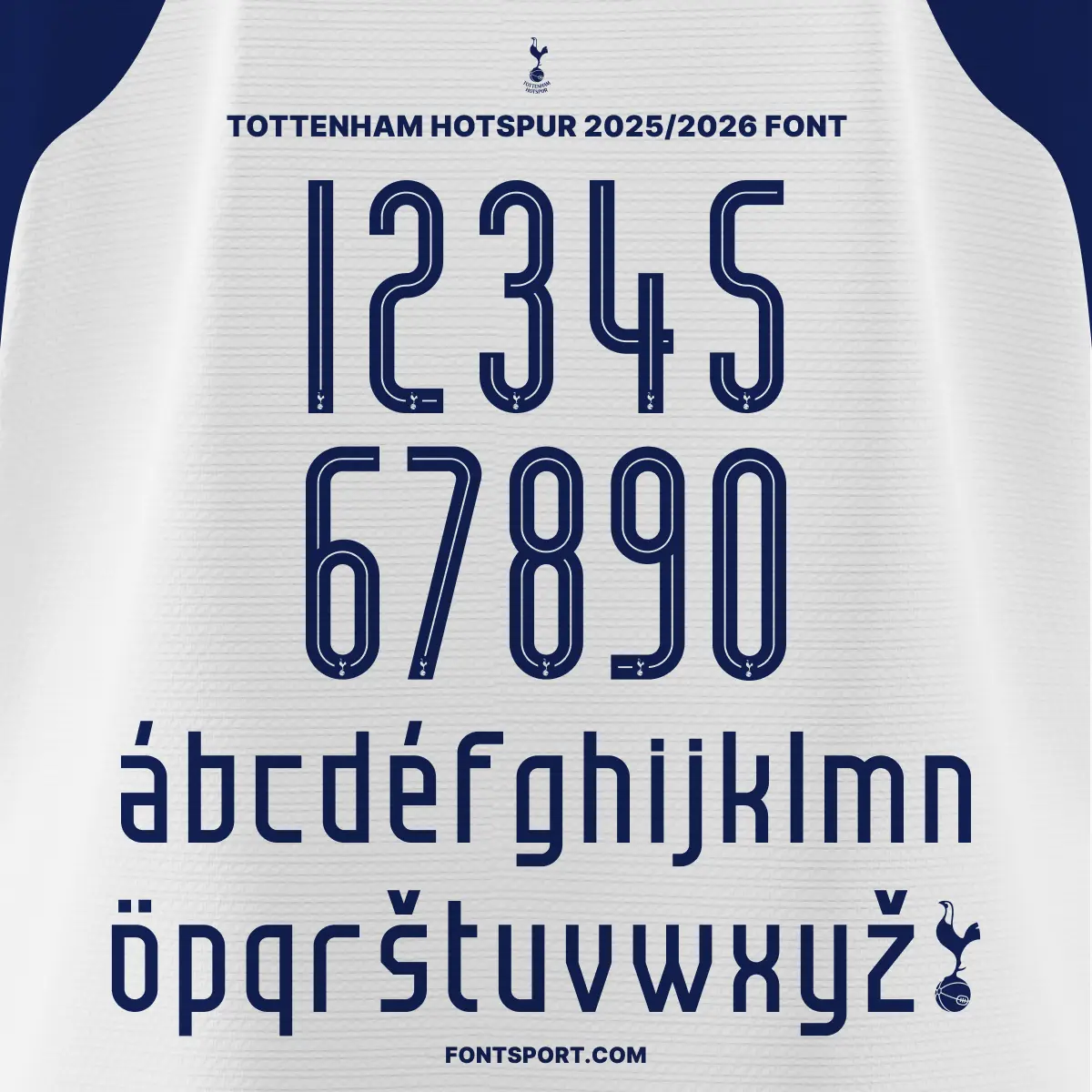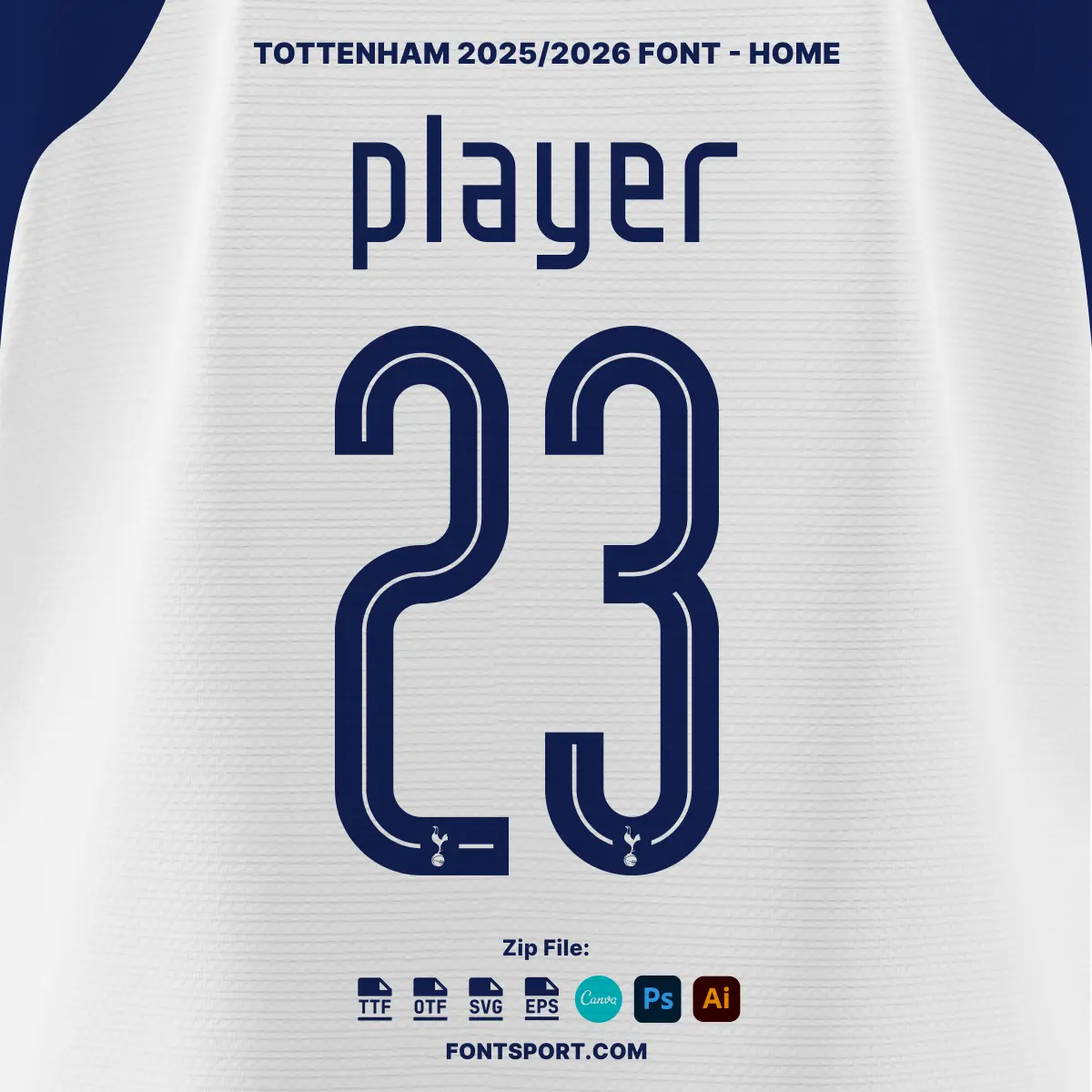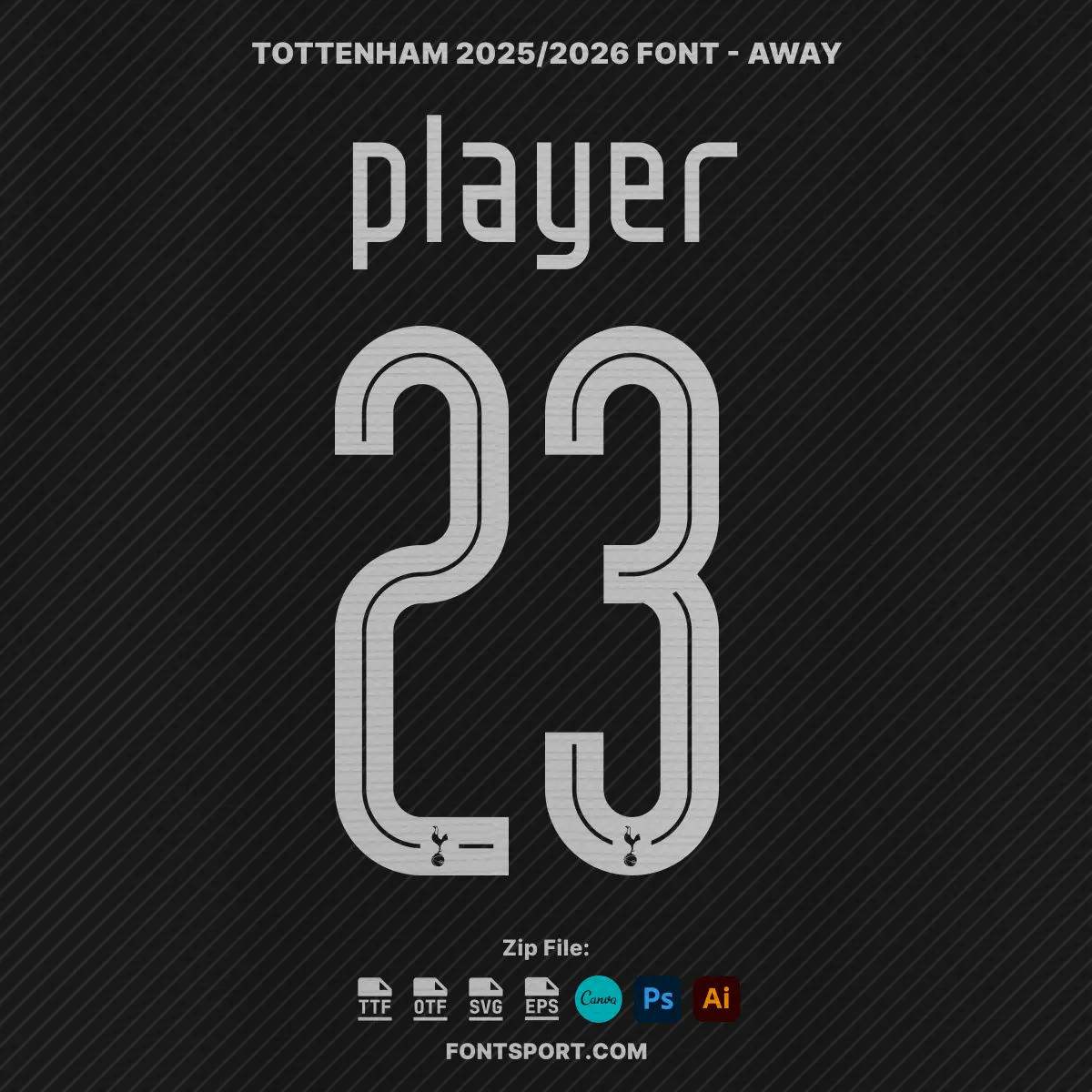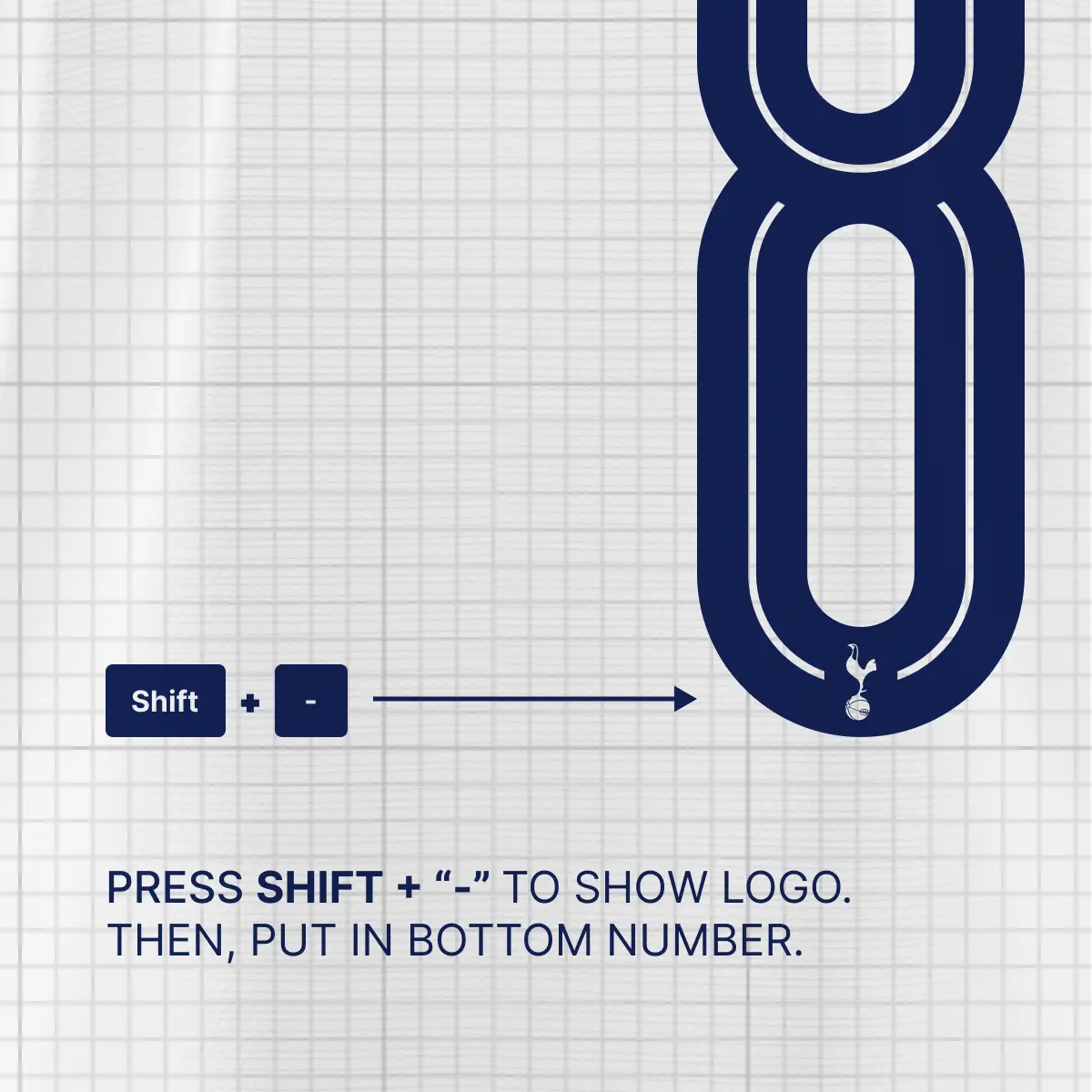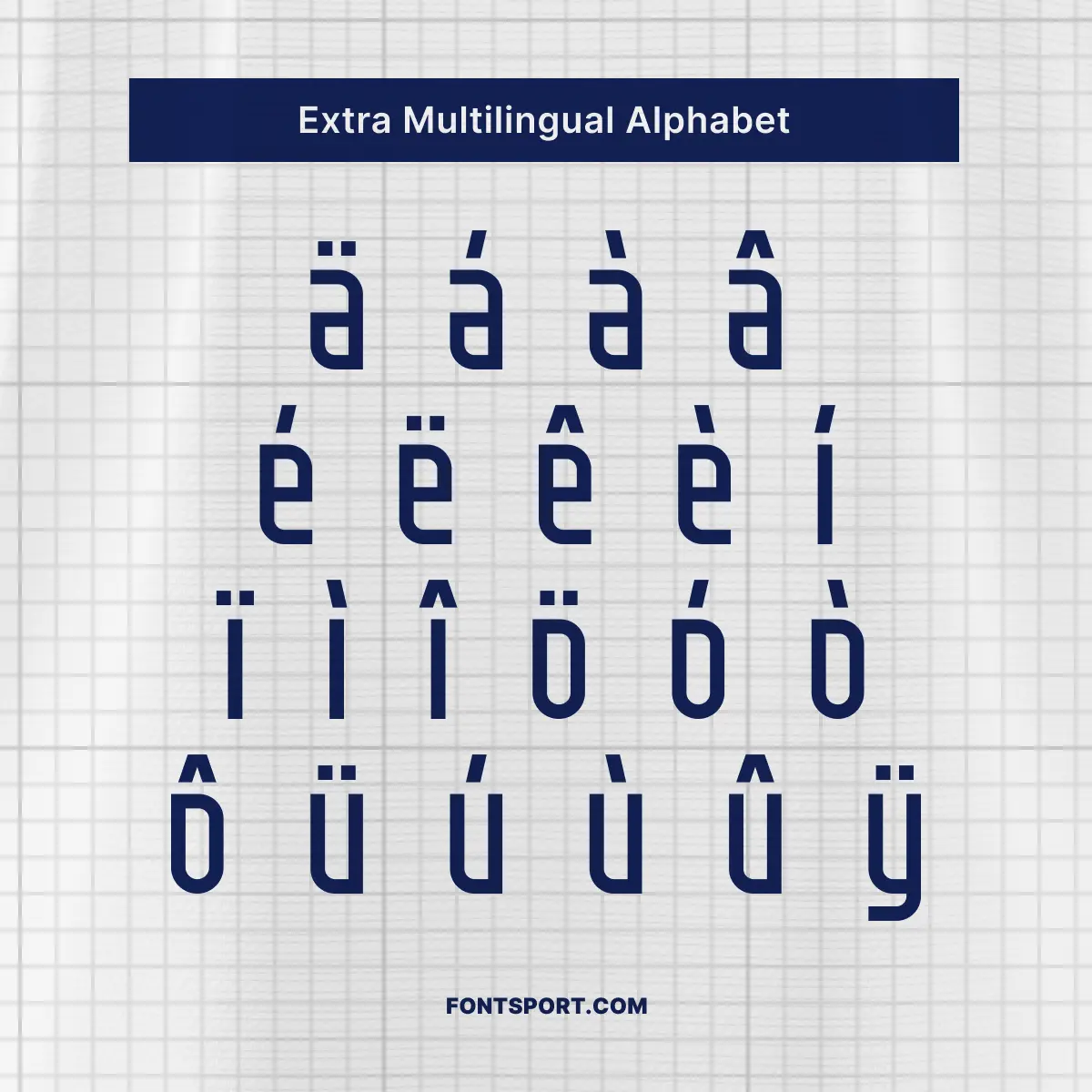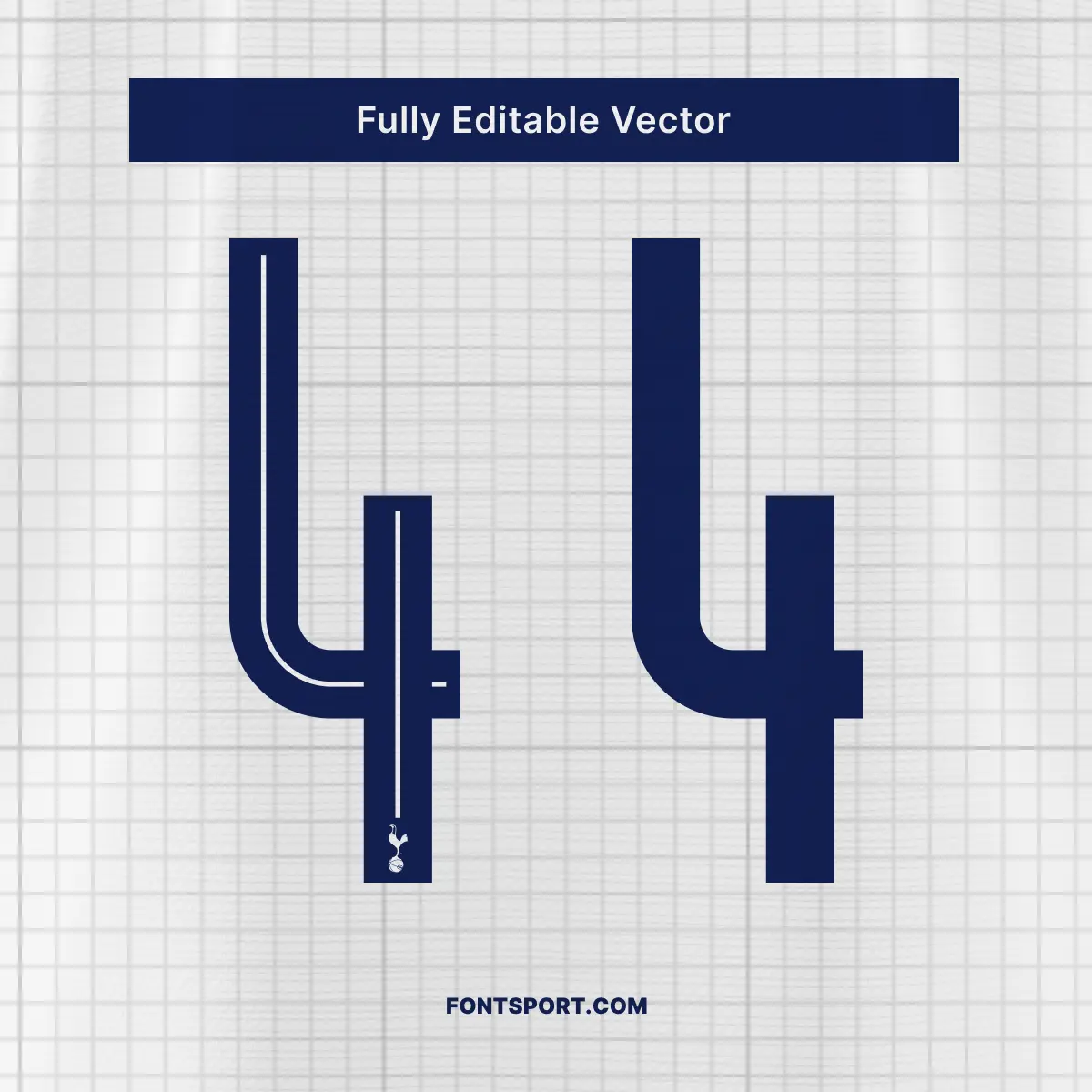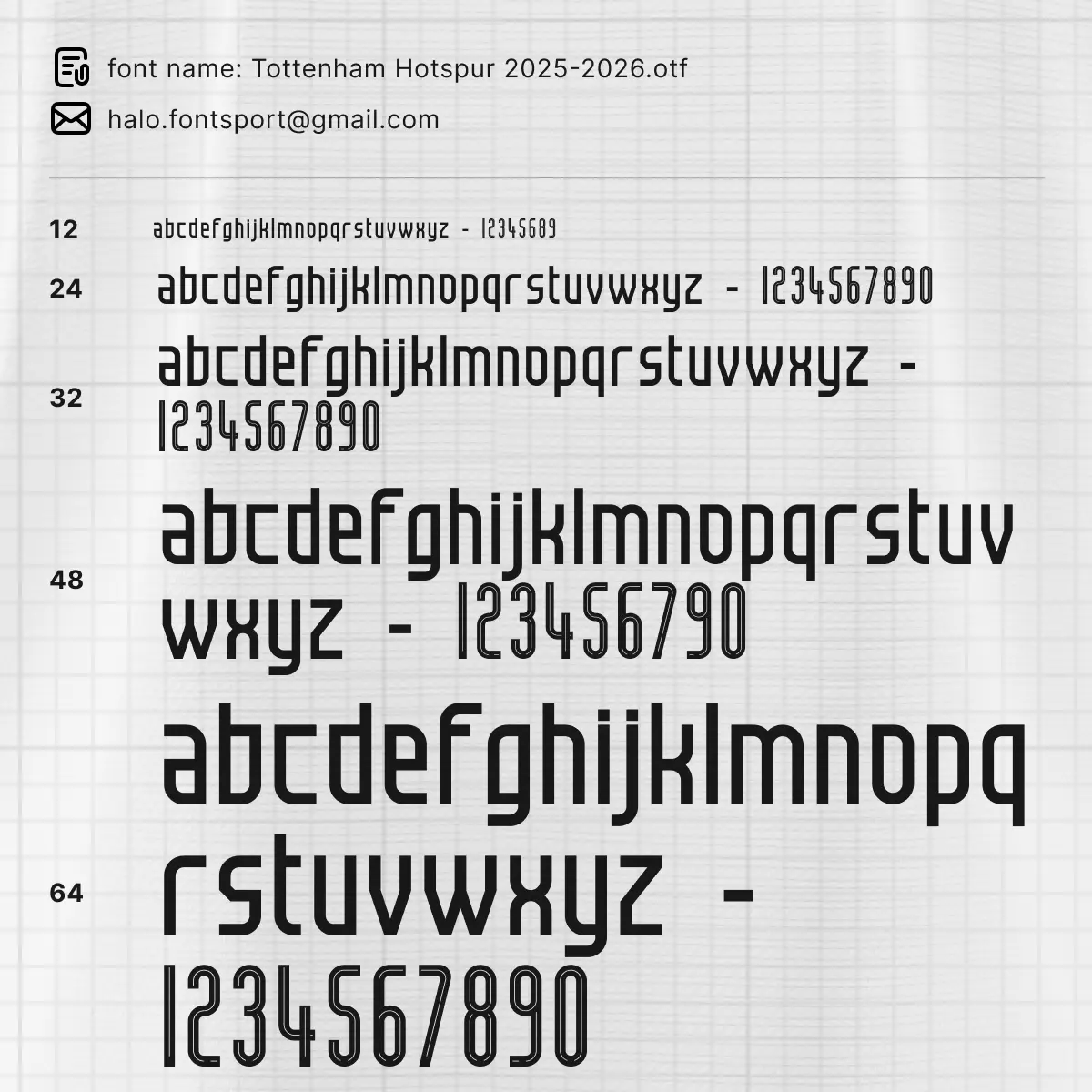
Tottenham Hotspur Font Kit 2025/2026
The Tottenham Hotspur Font Kit 2025/2026 brings the energy of the Premier League straight to your creative workflow. This typeface is a clean, dynamic, and modern interpretation of the fonts used by Spurs on their official kits for the 2025/2026 season. Whether you’re designing a custom football jersey, crafting social media content, or creating branded merchandise, this font delivers a professional and powerful look.
Tottenham Hotspur, one of the most iconic clubs in England’s Premier League, is known for its bold identity and clean design. This font kit captures that same essence—translating it into a versatile tool for digital and print projects. From jersey mockups to limited-edition packaging, the Tottenham Hotspur Font Kit helps your designs stand out.
Furthermore, players like Heung-Min Son and James Maddison continue to bring global attention to the club. With this font kit, you can mirror that professional aesthetic in your own creative work.
✅ Complete uppercase A–Z and numbers 0–9
✅ Built-in Tottenham Hotspur logo glyphs – type to reveal instantly
Why This Kit Works
This font is crafted with usability in mind. You don’t need extra assets to show the logo—just type a simple key. The typography is clear, readable, and consistent across both screen and print. Moreover, the included vector assets give you total flexibility to resize without quality loss.
Thanks to its compatibility with popular design tools and clean, structured letterforms, the kit is beginner-friendly and production-ready. Whether you’re a fan or a designer, this kit offers a fun, professional way to bring the spirit of Tottenham Hotspur into your creative projects.
🔵 Inspired by the official Spurs 2025/2026 typography used in Premier League kits.